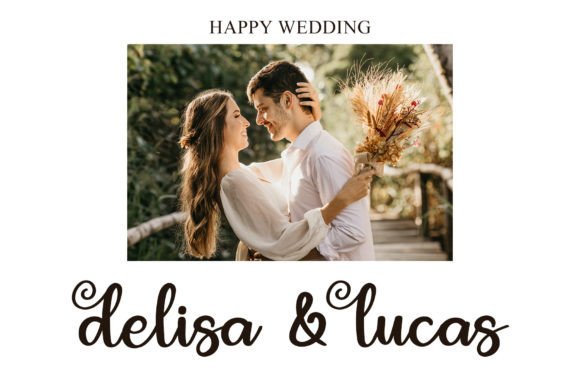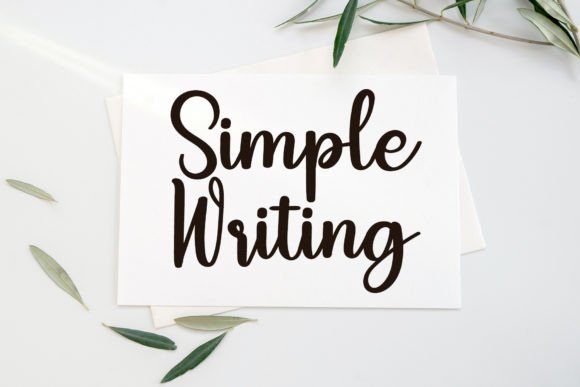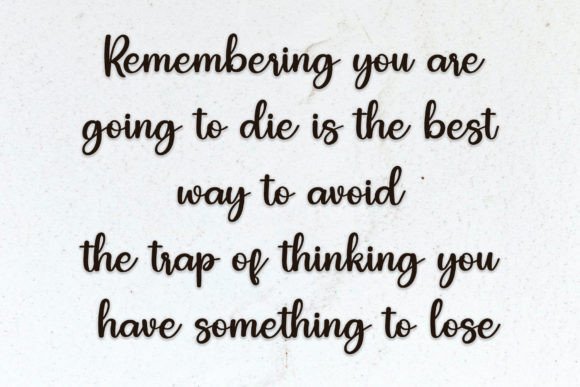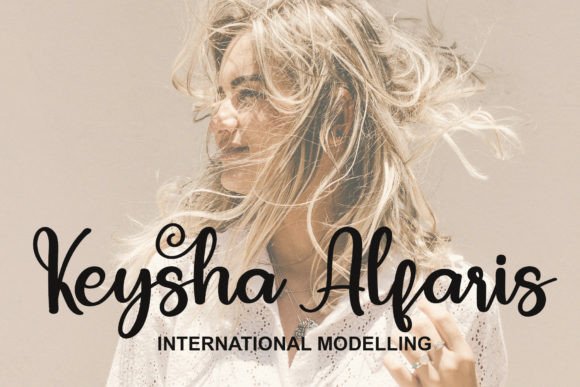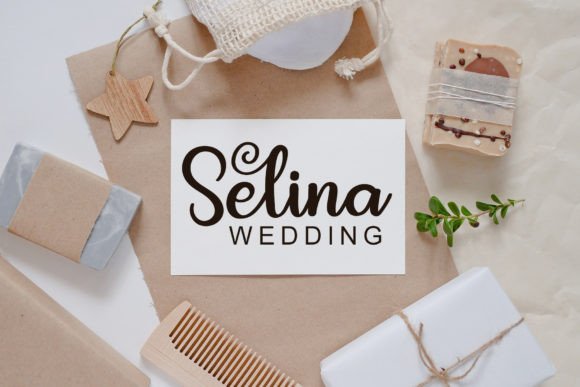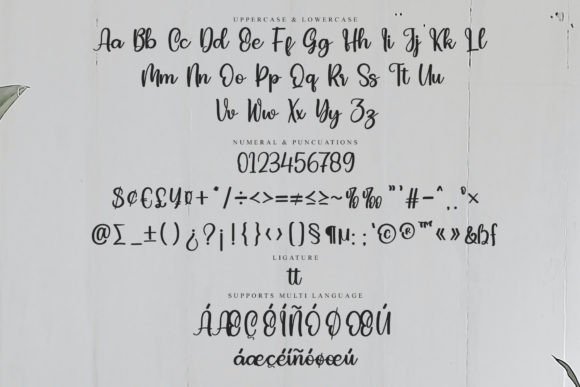
Bully Font: Elevate Your Designs with a Stylish and Modern Handwritten Touch
In the world of typography, a font can make all the difference in the aesthetic and appeal of a design project. For designers and crafters looking for that perfect blend of style and modernity, the Bully Font stands out as an exceptional choice. This beautifully crafted handwritten font is versatile, charming, and designed to add a lovely accent to a wide range of applications, from greeting cards and headlines to branding and packaging.
The Charm of Bully Font
Bully Font is not just any ordinary font; it’s a stylish and modern handwritten typeface that brings a personal touch to any design. Its unique charm lies in its ability to convey warmth, friendliness, and a sense of approachability, making it perfect for projects where you want to connect with your audience on a more personal level. Whether you’re working on a greeting card, a brand logo, or product packaging, Bully Font adds a distinctive flair that sets your design apart.
One of the key advantages of Bully Font is its versatility. It’s a font that can be used across a wide spectrum of applications. Here are a few ways you can incorporate Bully Font into your projects:
- Greeting Cards: Add a personal touch to your greeting cards, making them more heartfelt and special.
- Headlines: Use Bully Font to create eye-catching headlines for your blog posts, articles, or advertising materials.
- Branding: Enhance your brand’s identity with a unique and memorable font that reflects your brand’s personality.
- Packaging: Make your product packaging stand out on the shelves with a font that exudes style and modernity.
Why Choose Bully Font?
There are several reasons why Bully Font should be your go-to choice for your design projects:
- Unique Style: Bully Font offers a unique style that is both stylish and modern, ensuring your designs look contemporary and appealing.
- Easy to Read: Despite its stylized nature, Bully Font remains easy to read, making it functional for a variety of uses.
- Highly Versatile: Its versatility means you can use it for both digital and print projects, making it a valuable addition to your font library.
- Emotional Connection: The handwritten nature of Bully Font helps create an emotional connection with your audience, making your designs more relatable and engaging.
How to Use Bully Font Effectively
To make the most out of Bully Font, consider the following tips:
- Mix and Match: Don’t be afraid to experiment by mixing Bully Font with other fonts to create a unique contrast.
- Adjust Size and Color: Play with the size and color of Bully Font to emphasize certain elements of your design.
- Use it Sparingly: While Bully Font is beautiful, using it sparingly can make it more impactful. Use it for key messages or headings.
Bully Font is a stylish and modern handwritten font that can elevate your design projects with its unique charm and versatility. Whether you’re a designer or a crafter, this font offers a wide range of possibilities for creating beautiful and engaging designs. From greeting cards to branding and packaging, Bully Font is sure to add that lovely accent you’ve been looking for. So, why wait? Explore the creative possibilities with Bully Font today and take your designs to the next level.